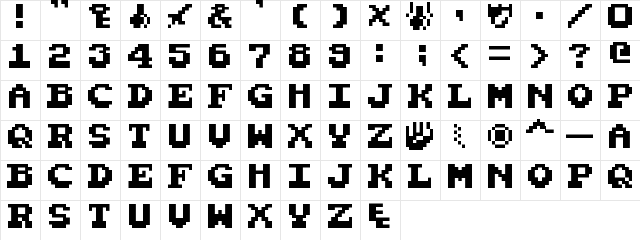
Gauntlet Regular
Design Context for Gauntlet Typeface
Gauntlet is a composed and adaptable typeface that performs quietly and consistently across a wide range of design contexts.